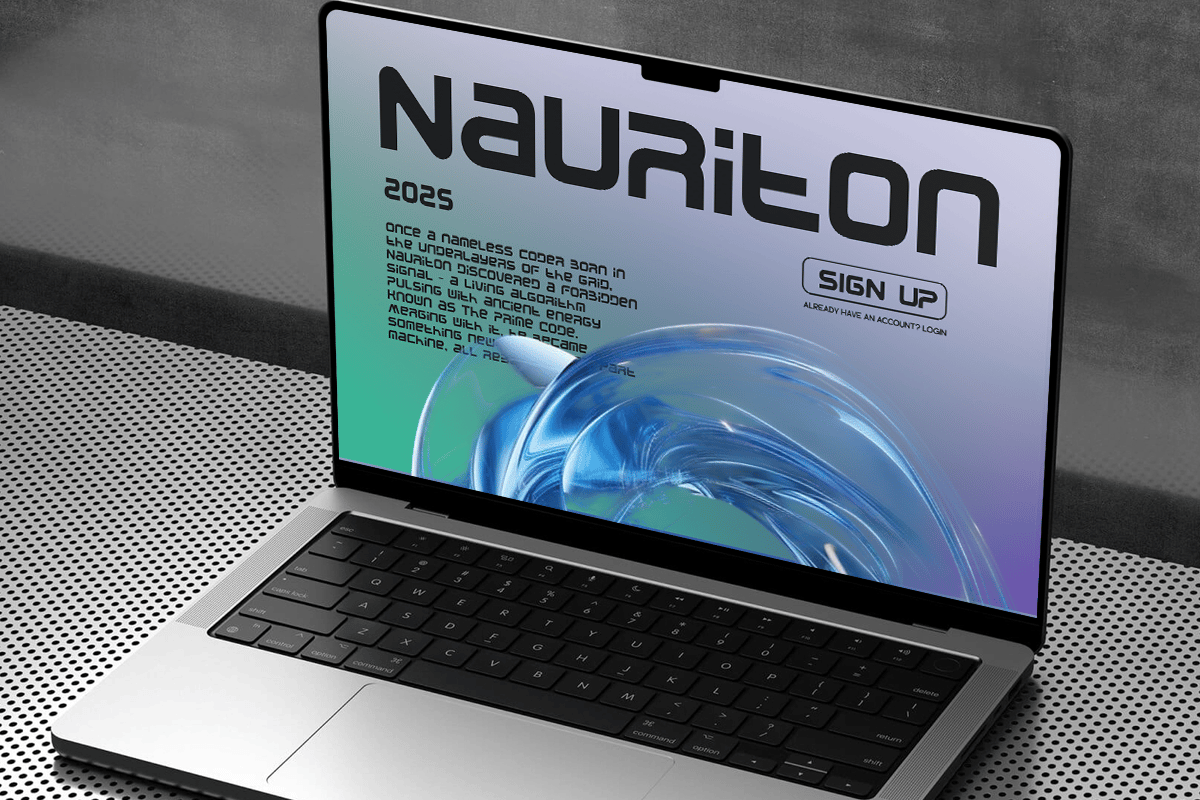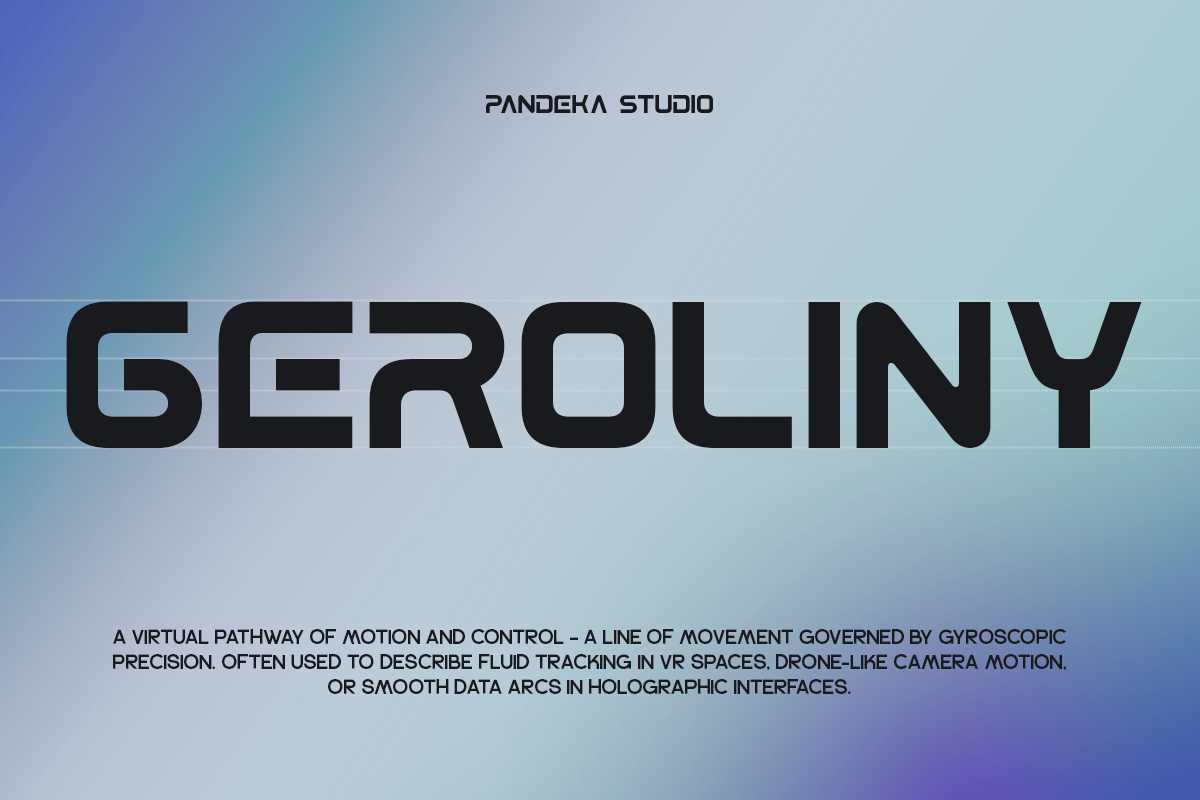
Futuristic Modern Tech – Corpta Font
Futuristic Modern Tech – Corpta Font is a versatile typeface ideal for various projects, including logos, branding, posters, blog headers, advertisements. The free version includes a full set of uppercase and lowercase letters, available in OTF format.